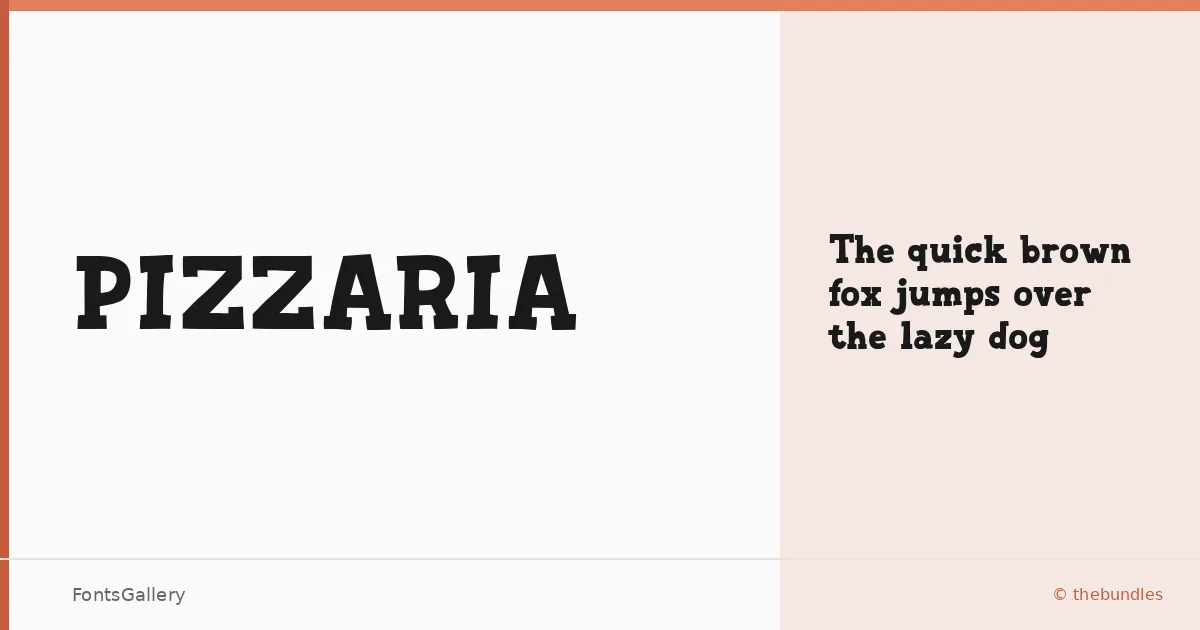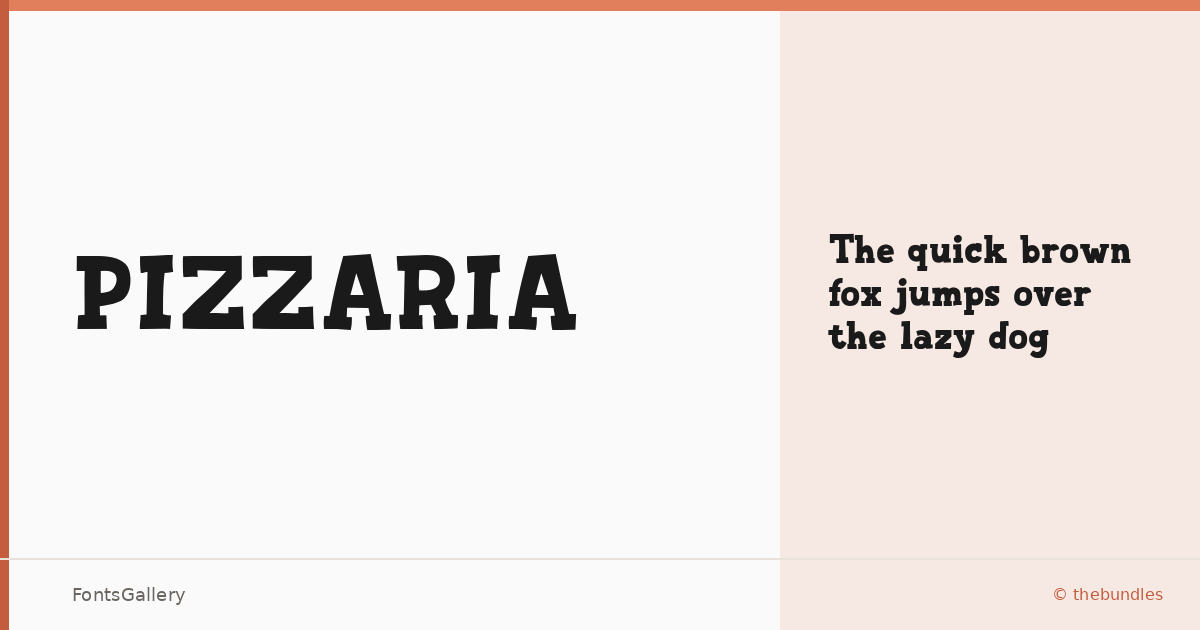
About PIZZARIA Font
There is something immediately familiar about this slab serif — the kind of letterforms you associate with hand-painted signs, old-school diners, and menus that mean business. Designed by mehibi for thebundles, PIZZARIA arrives as a single Regular cut, its weight and character doing the heavy lifting that other families need multiple styles to achieve.
The face sits squarely in slab serif territory, drawing on a rustic, vintage sensibility that feels both classic and deliberately bold. The serifs carry real presence — thick enough to hold their own at display sizes without losing the warm, handcrafted quality that makes the design work. Delivered as a TTF file, it is a single-weight family, so the expression comes entirely from the forms themselves rather than from style variation.
It earns its keep in branding, logo lockups, poster headlines, menu design, and T-shirt graphics — anywhere you need a letterform with personality and staying power. When you need a clean counterpart to balance that rustic weight, it pairs well with Helvetica, Josefin Sans, or Asap; for something with more character contrast, Armelie or Kactigona make interesting companions.